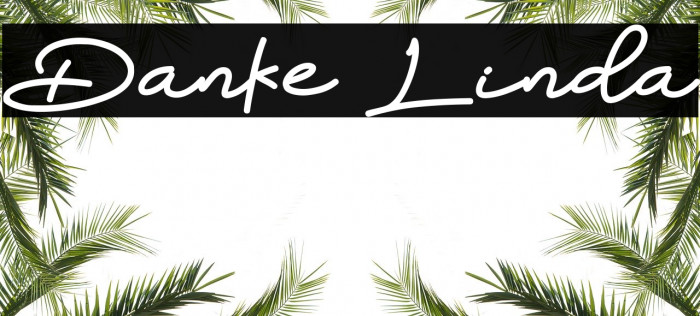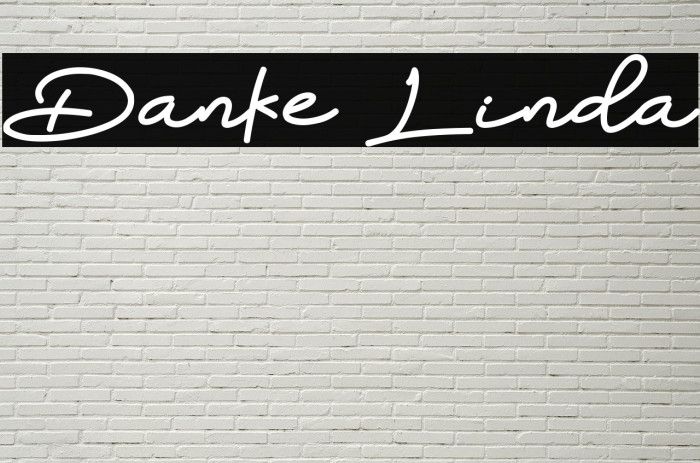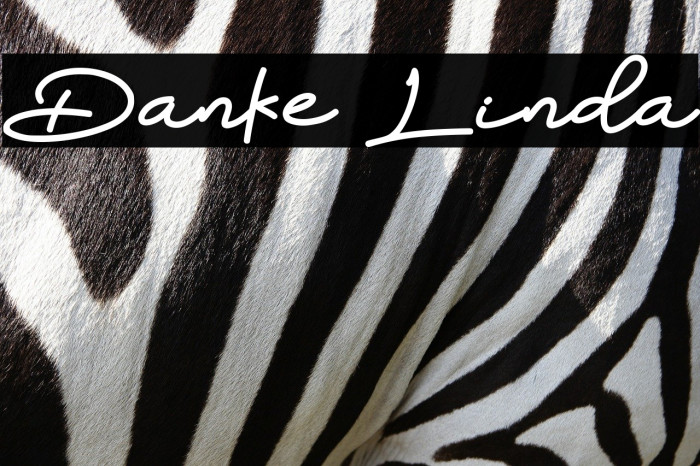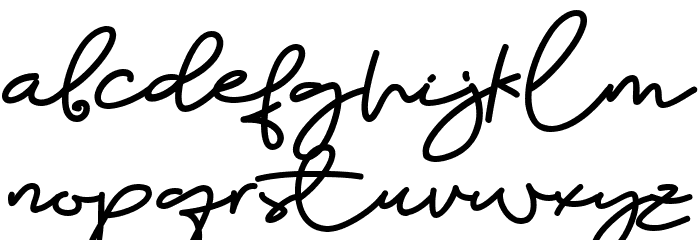
Danke Linda Font
This font exudes a casual, handwritten style with a touch of elegance, making it perfect for personal and creative projects. The uppercase letters are slightly more structured, maintaining a consistent baseline, while the lowercase letters flow with a natural, cursive flair. The strokes are smooth and fluid, giving the text a sense of movement and personality. The font maintains a medium weight, ensuring readability while preserving its artistic character. The character spacing is normal, allowing for clear legibility without compromising the font's decorative appeal. Its unique style is both approachable and sophisticated, making it versatile for various design needs.
A casual, handwritten font with elegant, fluid strokes and medium weight.
• Proposed Projects: Ideal for wedding invitations, greeting cards, personal branding, and creative projects.
• Category: Handwritten
• Bold: No
• Italic: Yes
• Weight: Regular
• Width: Normal
• Character Spacing: Normal
• Contrast: Medium
• Overall Style: Decorative
• Use Case: Logos, Invitations, Personal Branding